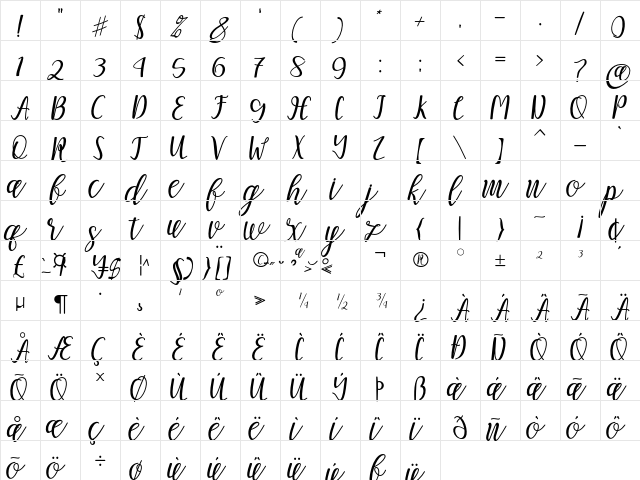
Mellitta Script Regular
| Foundry | Syahputra/Bexxtype |
| Designer | Syahputra/Bexxtype |
Design Context for Mellitta Script Typeface
Mellitta Script brings a calligraphic fluidity to the page — its connecting strokes and expressive curves give it an unmistakably human quality.
Font Pairing: Combine Mellitta Script with a simple geometric sans for maximum contrast — the tension between flowing curves and clean structure is a classic typographic pairing.
Pro Tip: Pair Mellitta Script with a clean sans-serif for supporting text. The contrast between fluid script and geometric structure creates an elegant typographic hierarchy.